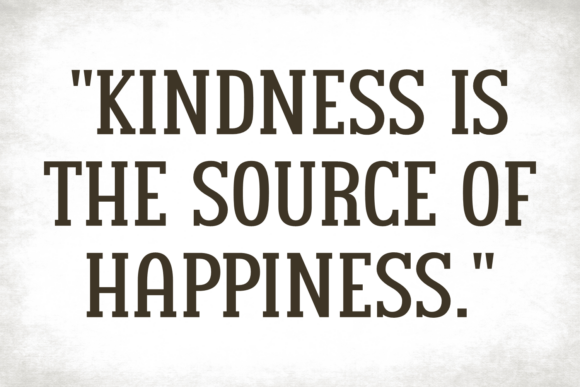
Discover the Perfect Harmony of Style and Emotion with Balanced Happiness Font
In the world of typography, few fonts manage to strike a chord as deeply as the Balanced Happiness font. This slab serif font is a masterful blend of classic and modern design elements, making it a trendsetting gem that can elevate a wide range of design projects. Whether you’re looking to create eye-catching summer designs, heartfelt greeting cards, or memorable branding and logos, Balanced Happiness is the ideal choice.
The Birth of a New Classic: Balanced Happiness Font
Balanced Happiness is more than just a font – it’s an experience. Its playful yet professional design strikes the perfect balance between fun and sophistication, making it incredibly versatile. This font is designed to inspire creativity and bring a touch of personality to any project. From the bold and vibrant to the subtle and elegant, Balanced Happiness adapts seamlessly to any design aesthetic.
Key Features of Balanced Happiness Font
- Slab Serif Design: The font’s slab serif style gives it a sturdy and dependable feel, while also infusing it with a modern edge.
- Playful yet Professional: The design of Balanced Happiness strikes the perfect balance between playfulness and professionalism, making it suitable for a wide range of projects.
- Versatility: This font can be used for everything from headlines and movie titles to greeting cards and branding.
- Unique Charm: The font’s unique design elements give it a distinct personality that shines through in every stroke.
Crafting Unforgettable Designs with Balanced Happiness
One of the most significant advantages of the Balanced Happiness font is its ability to enhance any design project. Here are a few ways you can use this versatile font to create unforgettable designs:
Applications of Balanced Happiness Font
- Summer Designs: Create riveting summer designs that capture the essence of the season with bold and vibrant typography.
- Greeting Cards: Add a touch of warmth and personality to heartwarming greeting cards for any occasion.
- Headlines and Titles: Use Balanced Happiness to craft striking headlines and movie titles that demand attention.
- Birthday Announcements: Stand out from the crowd with unique and eye-catching birthday announcements.
- Inspirational Quotes: Stir emotion and inspire with beautifully designed inspirational quotes.
- Branding and Logo Design: Establish an unforgettable brand identity with a logo that incorporates the Balanced Happiness font.
The Emotional Connection of Balanced Happiness Font
A great font can do more than just convey information – it can evoke emotions and create a connection with the viewer. The Balanced Happiness font, with its unique charm and versatile design, is perfectly suited to projects that aim to inspire, uplift, and connect with the audience on a deeper level.
Creating Emotional Impact with Typography
The right typography can transform a simple message into a powerful statement. With Balanced Happiness, you can:
- Evoke Joy: The playful design of the font can bring a sense of joy and lightness to your projects.
- Inspire Hope: Use the font to create inspirational quotes and messages that inspire hope and positivity.
- Establish Connection: The warmth and personality of Balanced Happiness can help establish a deeper connection with your audience.
Why Choose Balanced Happiness Font?
With so many fonts available, why should you choose Balanced Happiness for your next project? Here are a few compelling reasons:
Top Reasons to Choose Balanced Happiness
- Versatility: Its adaptability makes it suitable for a wide range of design projects.
- Unique Design: The font’s unique charm sets it apart from more traditional fonts.
- Emotional Impact: It has the power to evoke emotions and create a deeper connection with the audience.
- Professionalism: Despite its playful nature, Balanced Happiness maintains a level of professionalism suitable for corporate branding and designs.
The Balanced Happiness font is a game-changer in the world of typography. Its perfect blend of classic and modern design elements, coupled with its versatility and emotional impact, makes it an invaluable asset for designers and brands alike. Whether you’re looking to create striking summer designs, heartfelt greeting cards, or establish a memorable brand identity, Balanced Happiness is the ideal choice. Discover the perfect harmony of style and emotion with Balanced Happiness font and take your design projects to new heights.